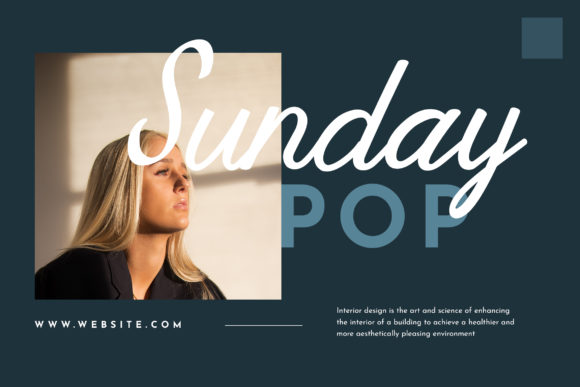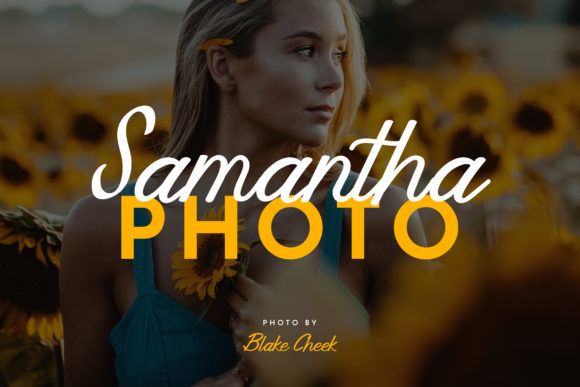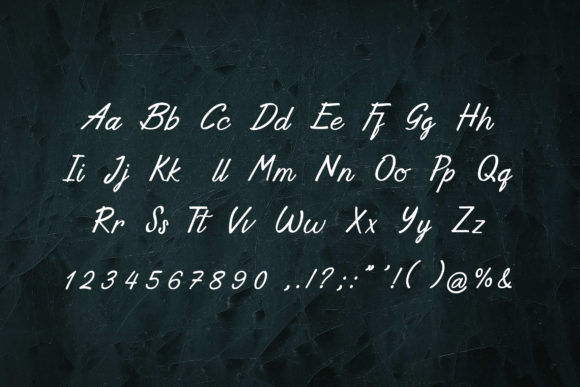
Introduction to Derapide Font
There’s something special about discovering a new design resource that brings a touch of magic to your creative project. For me, that moment happened when I stumbled upon the Derapide Font. Its dainty, handwritten strokes and playful feel instantly captured my heart, and I knew I had to learn more about this charming font.
As designers, we’re always on the lookout for unique and high-quality fonts that can elevate our designs and add a personal touch. The Derapide Font is a perfect addition to any design arsenal, offering a transparent background and a wide range of creative possibilities. Whether you’re working on a wedding invitation, a card, or any other design project that requires a romantic and personalized touch, this font is sure to impress.
Key Features of Derapide Font
- High-quality design resource ideal for creative projects requiring a unique touch.
- Transparent background, making it perfect for overlaying on images or videos.
- Font size: 1000 characters, with a resolution of 1024×1024 pixels.
- Supports a wide range of languages, including Latin, Cyrillic, and Greek alphabets.
- Unique, creative design makes it a valuable addition to any design resource collection.
Honest Review: Derapide Font
I recently stumbled upon the Derapide Font and was immediately drawn to its unique, elegant design. As a designer, I appreciate high-quality fonts that can elevate a creative project. The Derapide Font is a great addition to any design resource, offering a beautiful, cursive script that’s perfect for a variety of applications.
Here are some of the things that work well with the Derapide Font:
- ✨ Unique, elegant design that adds a touch of sophistication to any project
- ✨ Transparent background for easy customization
- ✨ High-quality font that’s perfect for a variety of applications
However, I do have a few concerns:
- ⚠️ Limited character set, which may not be suitable for longer texts
- ⚠️ May require additional formatting to achieve the desired look
Overall, I’m impressed with the Derapide Font and would definitely consider using it in future projects. While it may have some limitations, its unique design and high-quality aesthetic make it a valuable addition to any design resource.
Tips for Getting the Most Out of Derapide Font
Use Derapide Font with a transparent background to create a high-quality design resource. This font is perfect for creative projects, such as logos, branding, and marketing materials.
Derapide Font is ideal for use in creative projects, such as:
- Logos and branding materials
- Marketing and advertising campaigns
- Print design and publications